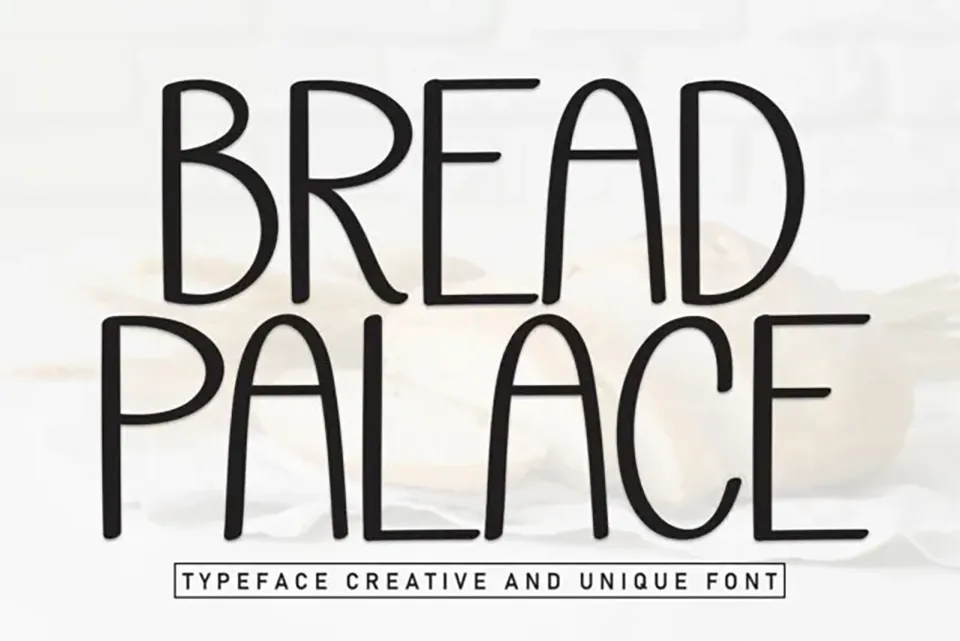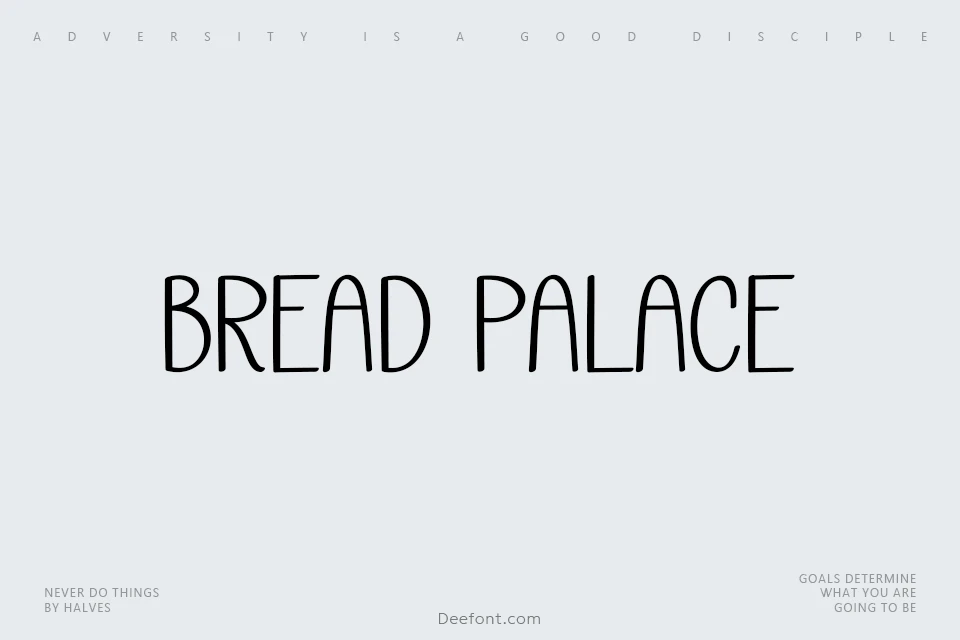
Bread Palace Display Font
Bread Palace Display Font is a creative and unique typeface designed to add a touch of modern simplicity to your projects. This thin, sans-serif font features tall, slightly condensed letterforms with clean lines and gentle curves, giving it a friendly yet stylish appearance. Its unique character makes it well-suited for eye-catching headlines, branding, logos, packaging, and other display purposes where a distinct, contemporary feel is desired. Bread Palace offers an approachable and versatile aesthetic, perfect for adding a light, airy, and unique touch to designs that aim for a clean and minimalist vibe with personality.